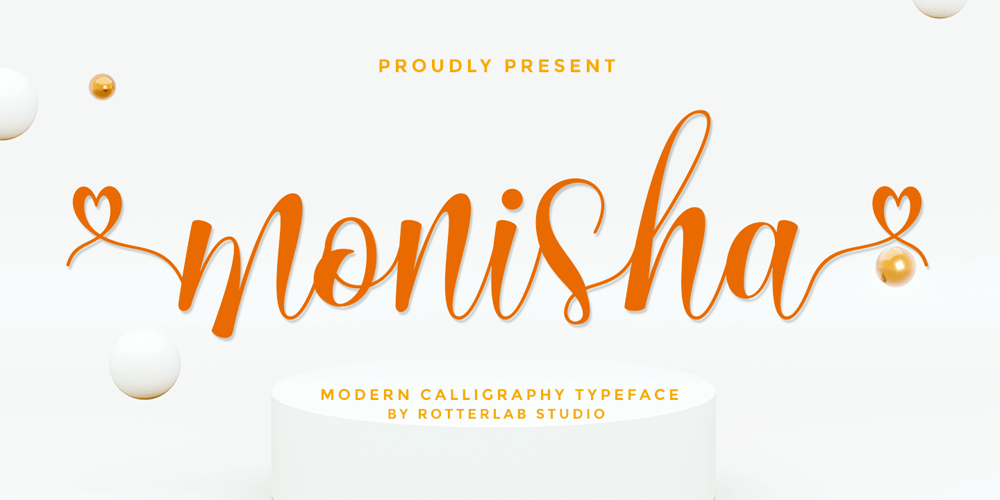
Monisha Font Family was designed by Sidiq Fahmi and published by Rotterlab Studio. Monisha contains 1 styles and family package options. Monisha is a beautiful script font with perfectly perfect alternates. This font will exude a romantic and elegant feeling of your design.Monisha can be used for various applications, such as wedding designs, logos, invitations, posters, social media posts, and others.Features:- Additional characters encoded by PUA with a love accent- Can be used in any software, such as Adobe Photoshop, Illustrator, even Microsoft Word, PowerPoint, and others.- multilingual glyphs